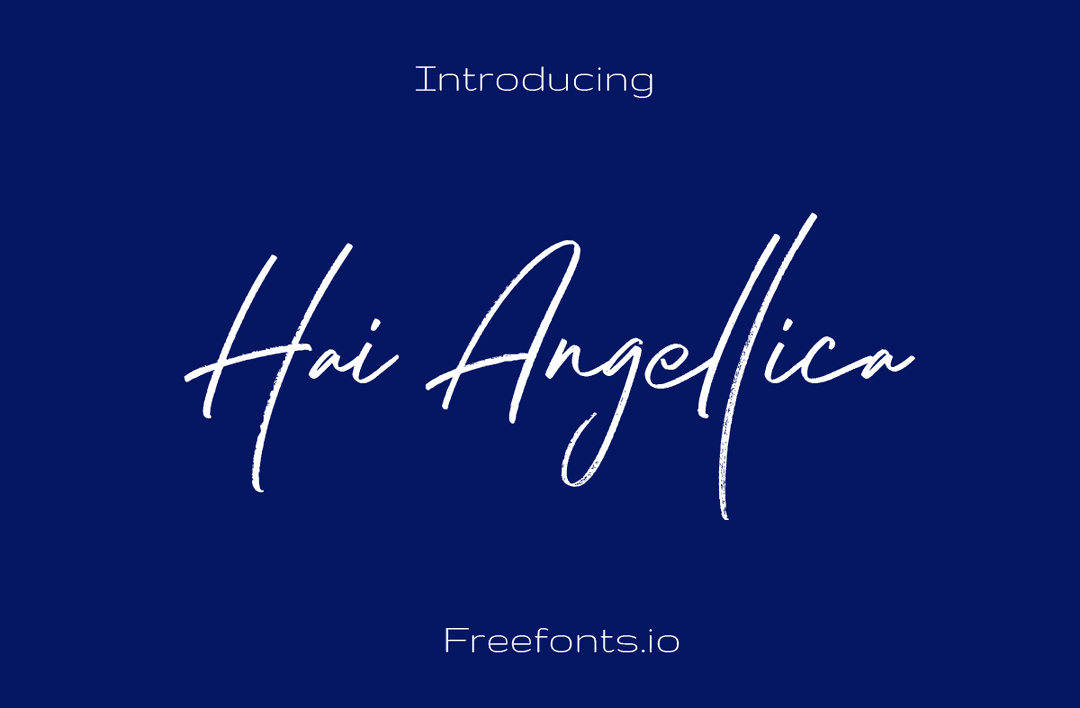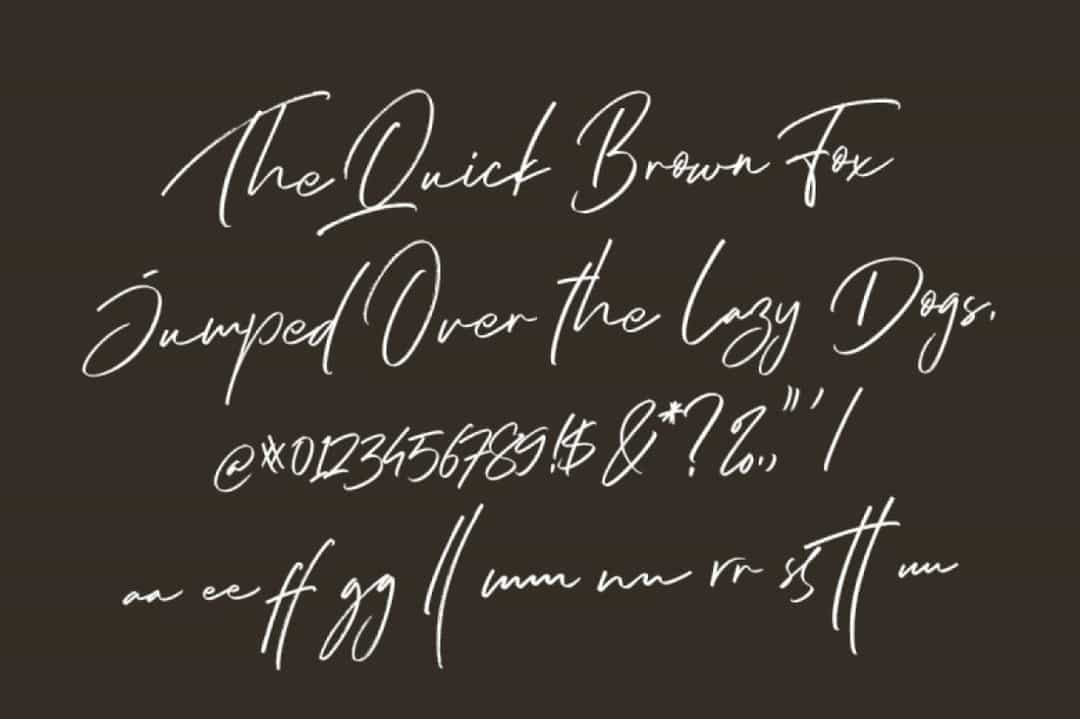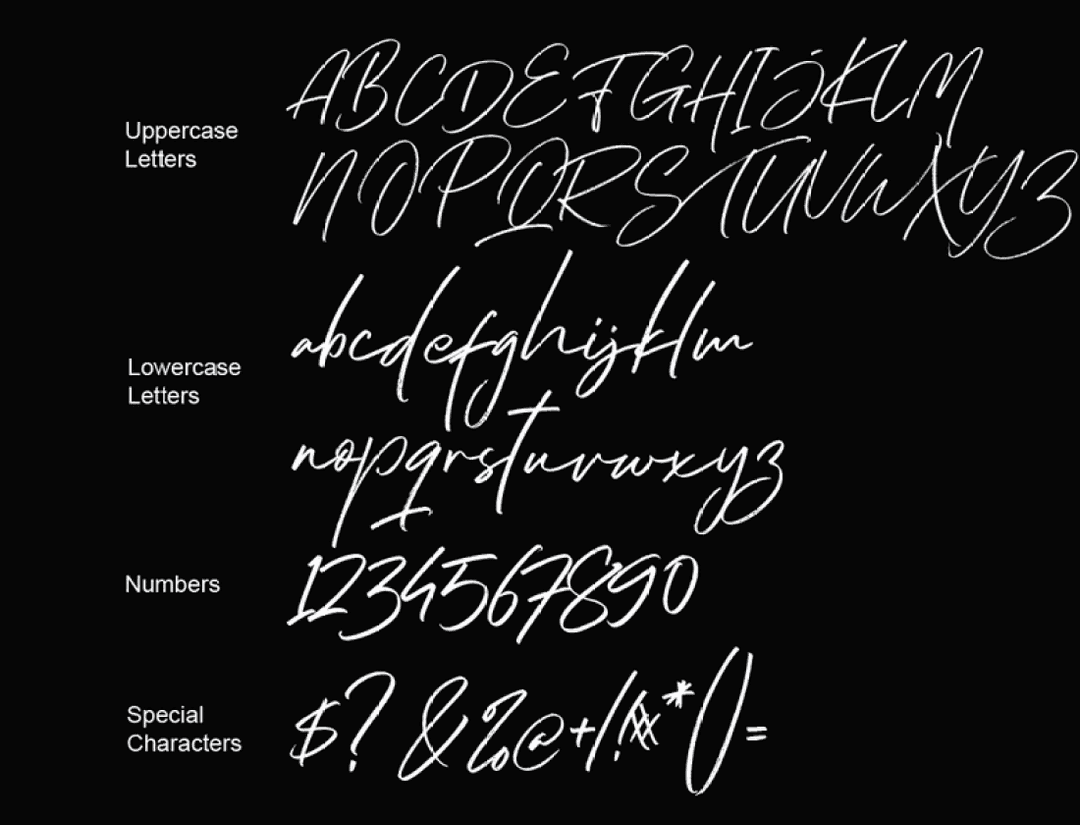
Discover Hai Angellica Font, part of the Brush Handwritten collection—a versatile and unique font perfect for adding a personal touch to your projects. Download it for free and enjoy crafting designs with style, from invitations to social media posts. This font is available exclusively for personal use, giving you the freedom to create without limits. Unlock your creativity with Hai Angellica Font today!
Thank you for the Quality Checking of Hai Angellica Font! The one who created and shared it is Azetype. Hei Angellica Handwritten Font is a handmade signature style font with amazing characters. Logo, name tag, handwritten quotes on product packaging and merchandise are the best suited for this font. It has a whole set of lower & uppercase letters, a wide variety of punctuation marks, numerals and multilingual support.